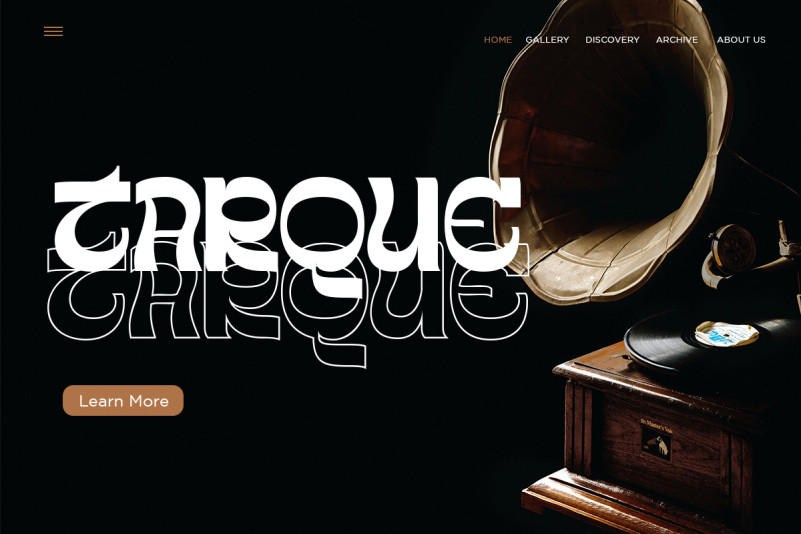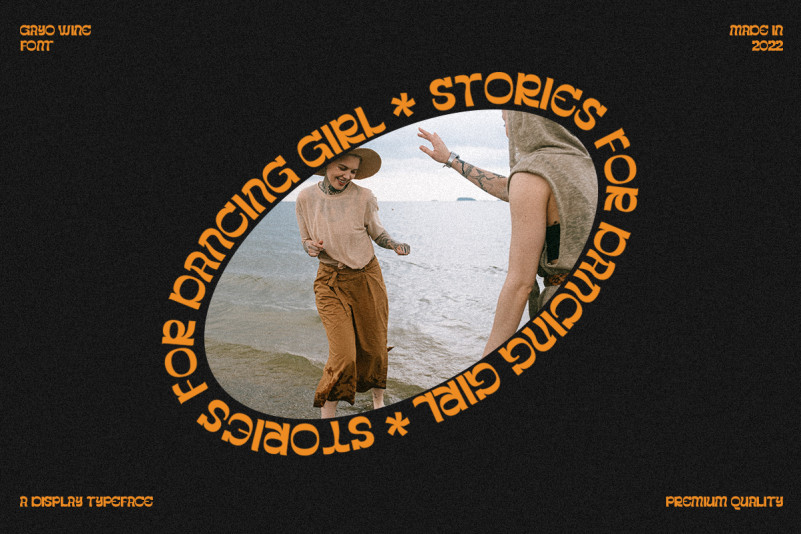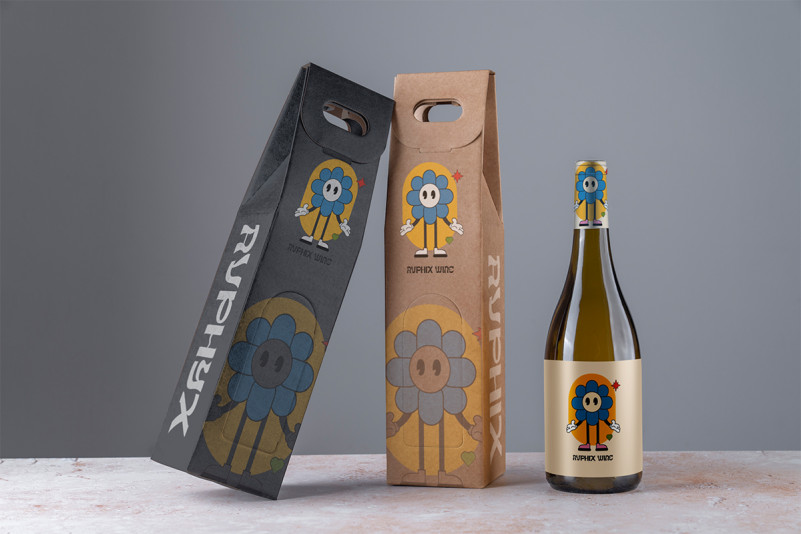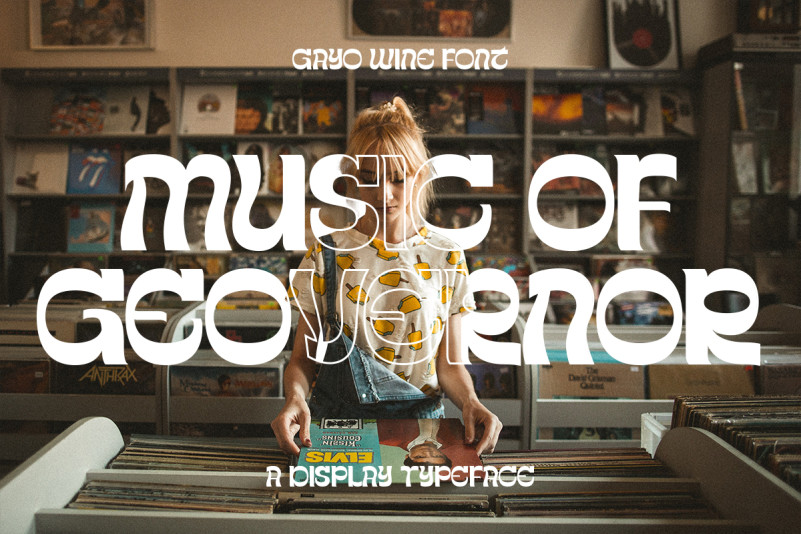
Gayo Wine Display Font Is A Fancy Display Typeface Inspired By Retro and Vintage Style. This font is suitable for a wide variety of projects such as logos, invitations, branding, magazine, photography, card, product packaging, product mockup, mugs, quotes, posters, labels, signatures, editorials, art deco, and much more.